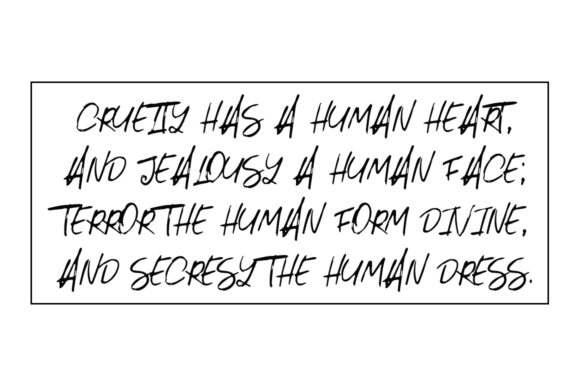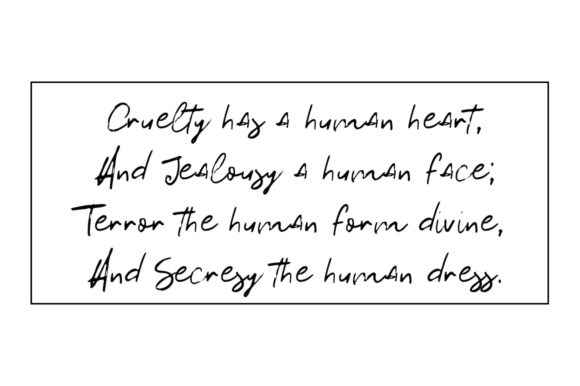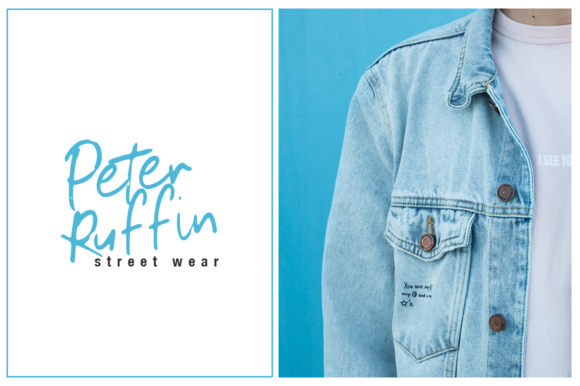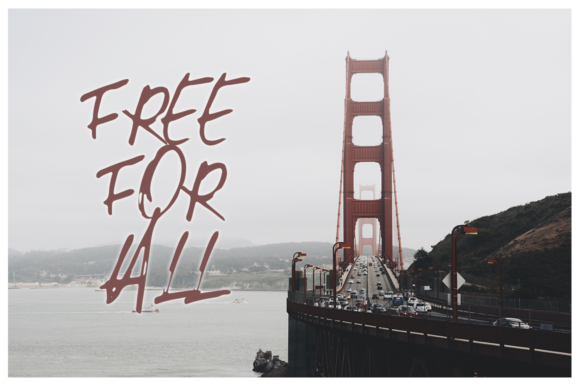
HomeScript FontsLaser Font Script Fonts Laser Font FacebookXPinterestWhatsApp Laser Font Poster 2 Laser Font Poster 3 Laser Font Poster 4 Laser Font Poster 5 About Laser Font Laser is a bold and unique script with a raw feel. Use it to add a rough vibe to any design idea. DOWNLOAD ON CREATIVE FABRICAThis font is sold and delivered by Creative Fabrica. Font Canyon may earn a commission if you buy through this link. People also explored Jamur Font Monttier Font Camello Font Elowyn Font Specialist Crafts Font Rocksoldier Font Jungle to Jungle Font Savannah Font Plularius Font 329 0 TagsLaser Font Previous articleSanty Fergason FontNext articleHardwired Font LEAVE A REPLY Cancel reply Comment: Please enter your comment! Name:* Please enter your name here Email:* You have entered an incorrect email address! Please enter your email address here Website: Save my name, email, and website in this browser for the next time I comment. Personal Use Free Kitsor Rauttie Personal Use Free Read more about this font Mellow Personal Use Free Read more about this font Adelia Font Personal Use Free Read more about this font Wondery Personal Use Free Read more about this font BLOG Modern Sans-Serif Fonts That Brands Love in 2025 In 2025, modern sans-serif fonts remain a top choice for brands looking to project clarity, professionalism, and... 5 Fonts That Will Dominate Design Trends in 2026 Top 7 Google Fonts Alternatives for Faster and Privacy-Friendly Web Design (2025) To increase your work productivity, choose the most readable fonts.